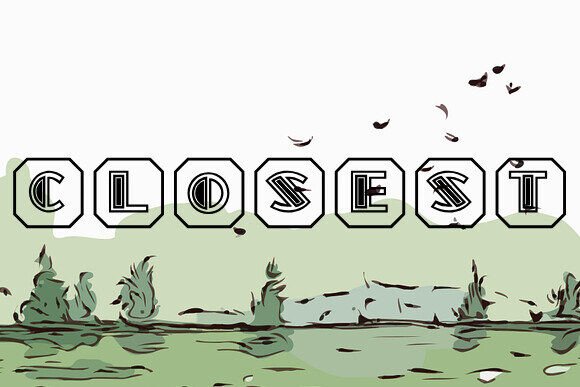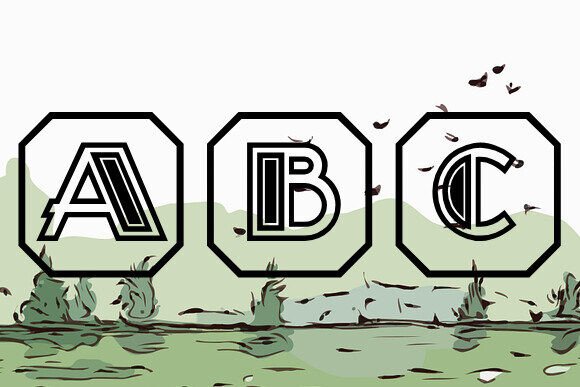
Introduction to Morava Capitals Font
Have you ever been working on a creative project, and then suddenly, the perfect font strikes a chord? For designers, finding the right font can make all the difference in elevating a design from good to great. And that’s exactly what the Morava Capitals Font does – it adds a touch of sophistication and style to any design.
Whether you’re creating a poster, flyer, or t-shirt design, the Morava Capitals Font is a valuable resource that’s sure to impress. Its sleek and modern design makes it perfect for a variety of creative projects, from graphic design to typography. And the best part? You can download it for free, making it an accessible design resource for designers of all levels.
Key Features of Morava Capitals Font
- High-quality design resource ideal for creative projects, offering a unique and stylish look.
- Designed with precision and attention to detail, ensuring crisp and clear typography at high resolutions (up to 300 DPI).
- Includes a wide range of characters, including uppercase and lowercase letters, numbers, and punctuation marks, making it suitable for various design needs.
- Part of a larger font family, offering a comprehensive set of fonts for designers to explore and utilize in their creative projects.
Honest Review: Morava Capitals Font
I recently had the chance to work with the Morava Capitals Font in one of my creative projects, and I must say it’s been a game-changer. As a designer, I’m always on the lookout for high-quality design resources that can elevate my work, and this font definitely delivers. ✨
- High-quality design: The Morava Capitals Font is crisp, clean, and incredibly detailed, making it perfect for a wide range of creative projects.
While I have no major complaints, I did notice that the font is a bit on the heavier side, which may not be suitable for all design projects. Additionally, the font’s bold weight can sometimes feel a bit overwhelming, especially in smaller text sizes. ⚠️
Overall, I’m thoroughly impressed with the Morava Capitals Font. Its high quality, versatility, and free availability make it a valuable addition to any designer’s toolkit. If you’re looking for a reliable design resource for your next creative project, I highly recommend giving this font a try.
Tips for Getting the Most Out of Morava Capitals Font
Use Morava Capitals Font for titles, headings, and other design elements where you want to add a touch of elegance and sophistication. Experiment with different font sizes and styles to create a unique visual effect. The transparent background feature allows for creative flexibility and seamless integration with other design elements.
Morava Capitals Font is ideal for various design projects, including logos, business cards, brochures, and presentations. Its high-quality design and transparent background make it a versatile design resource for any creative project.